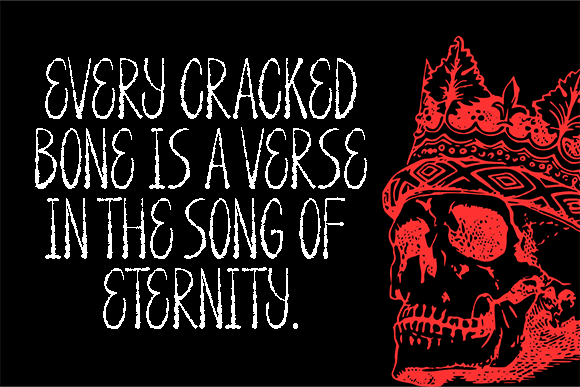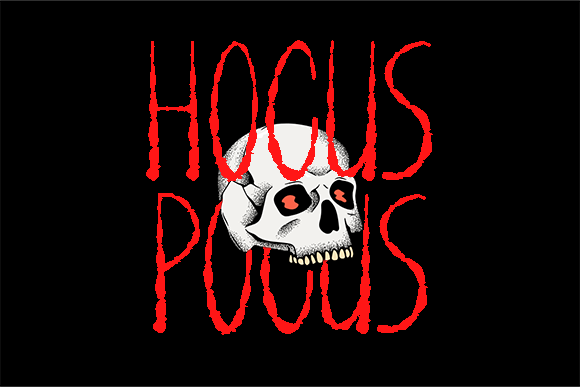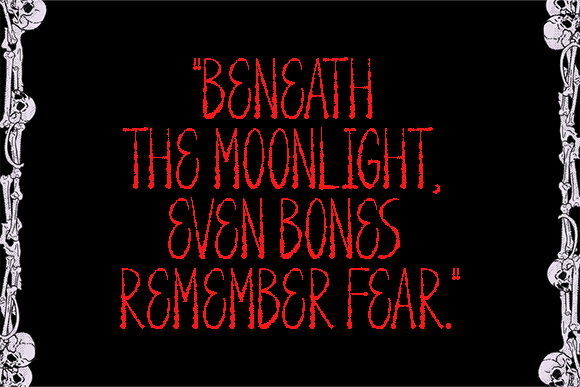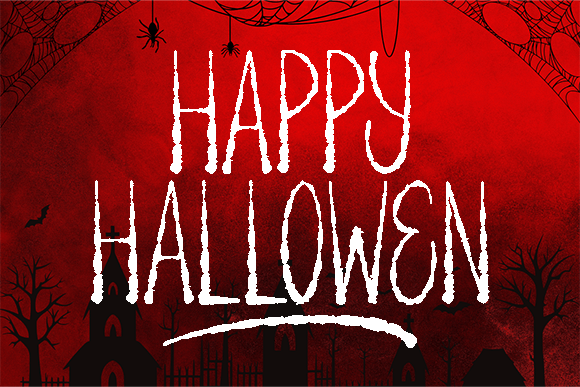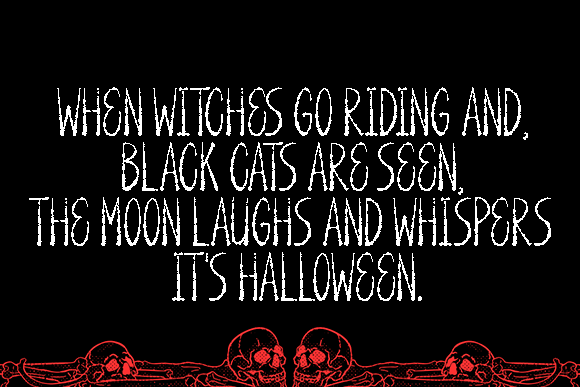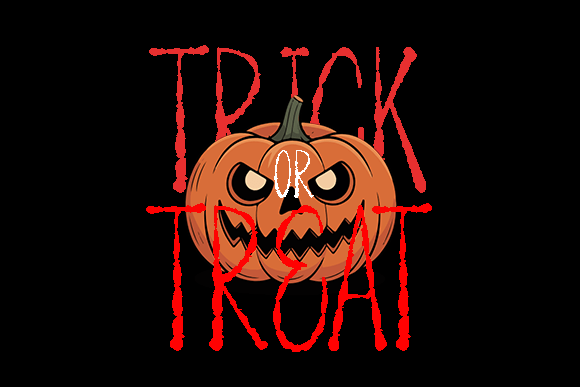
Introduction to Grave Bones Font Font
Fonts play a crucial role in design, and the Grave Bones Font font is a typeface that brings both character and versatility to any project. Whether you’re working on a branding project, a website, or a print design, the Grave Bones Font font offers a unique style that can elevate your work.
Grave Bones – Creepy Halloween Display Font Grave Bones is a spooky and bone-chilling display font inspired by Halloween horror vibes.
Each letter is crafted with uneven, hand-drawn bone shapes that create a raw and eerie aesthetic — perfect for your scary design projects This font brings out a dark, haunted, and handmade look, making it perfect for: ☠️ Horror movie posters 🎃 Halloween party invitations 👻 Spooky t-shirt designs 🦇 Game titles, logos, and eerie branding 🕯️ Social media posts or eerie quotes.
Key Features of Grave Bones Font Font
Why Choose Grave Bones Font Font?
The Grave Bones Font font is more than just a typeface – it’s a design tool that helps you communicate your message with style and clarity. Its unique character set and versatile design make it suitable for a wide range of applications, from elegant invitations to bold headlines.
With its carefully crafted letterforms and balanced proportions, the Grave Bones Font font ensures readability and visual appeal across all mediums.
What makes Grave Bones Font font special?
The Grave Bones Font font stands out with its unique design, exceptional readability, and versatility across various design applications.